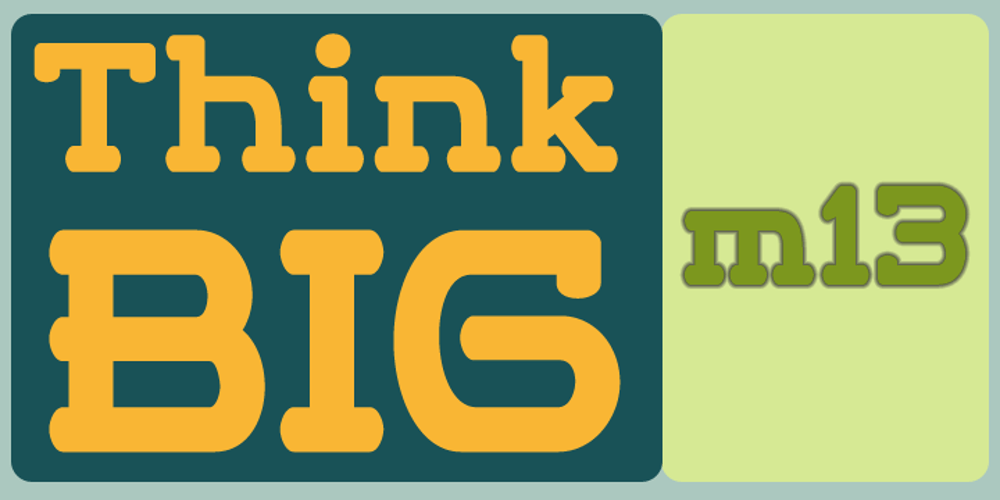
m13 Font Family was designed by Alec Julien and published by Haiku Monkey. m13 contains 2 styles and family package options. m13 is the sort of font that can settle a bar brawl or carry you out of a ravine on its broad shoulders.